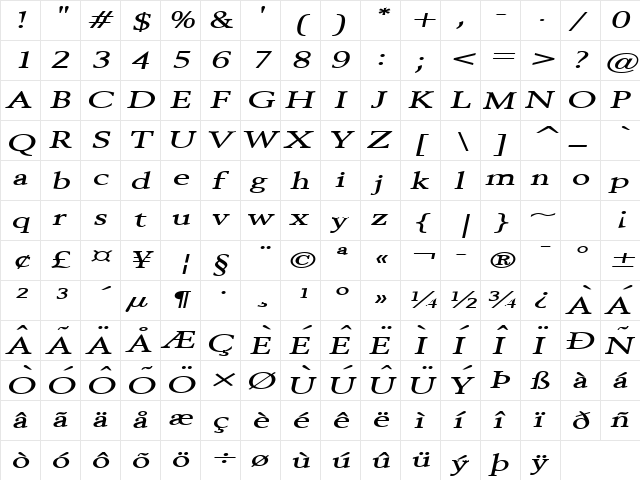
Revive 8 Extended BoldItalic Font Preview
Design Context for Revive 8 Extended Typeface
Revive 8 Extended takes a measured approach to typography — its balanced proportions and neutral character make it a reliable workhorse for both digital and print work. Its italic angle brings a sense of urgency and motion to the letterforms. The heavy weight commands attention and anchors typographic hierarchies.
Pro Tip: Use Revive 8 Extended for emphasis, pull quotes, and subheadings where its slanted energy can add rhythm to the layout.